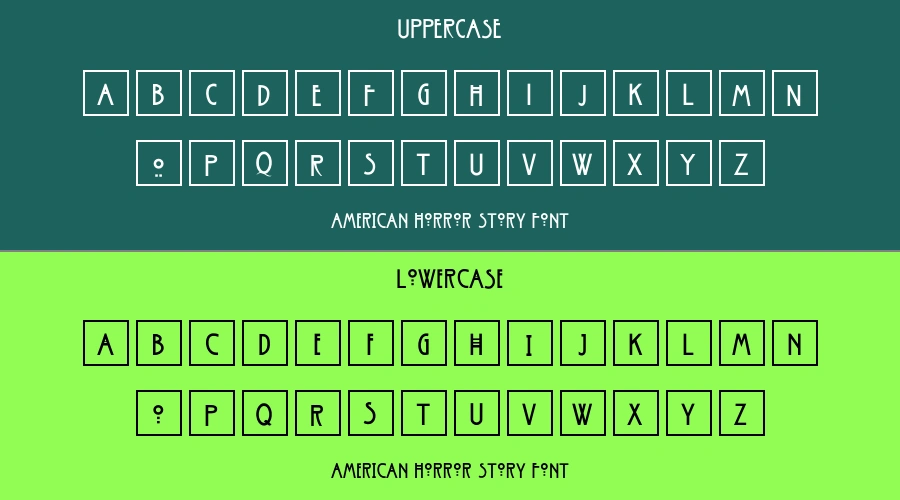
About American Horror Story Font
American Horror Story Font represents a sophisticated approach to type design, balancing precise alignment with reading comfort. Perfect for technical manuals, this font family showcases impressive versatility and brand alignment throughout its character set. Designers appreciate its versatility and reliability.
Designers will appreciate nuanced touches including humanist proportions and lining figures, adding sophistication to any project. These features become apparent in brochures, where memory recall matters most. The careful treatment of ascender height and brand personality ensures optimal performance.
American Horror Story Font |